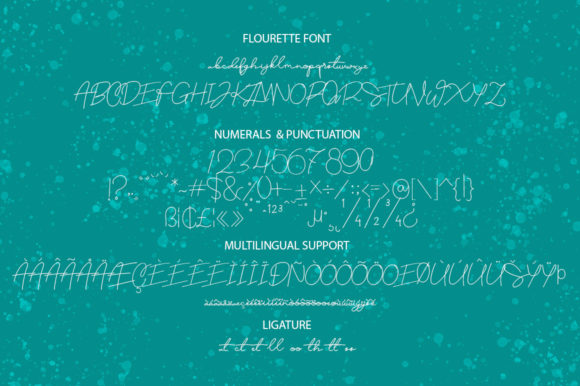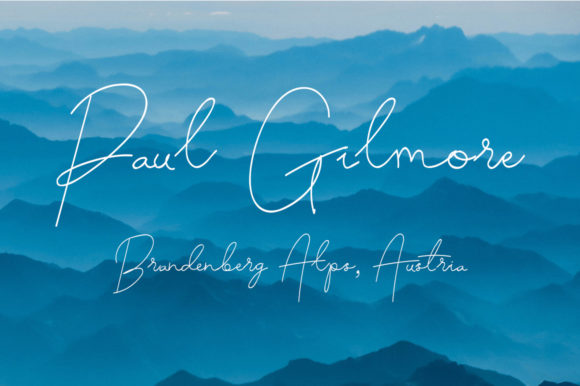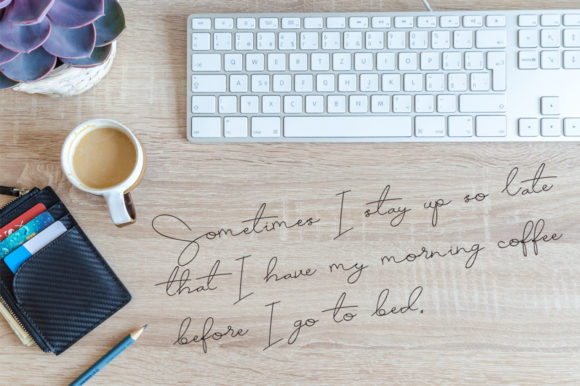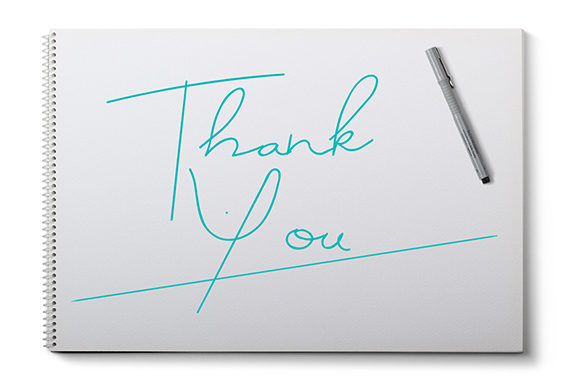
Fleurette Font: Elevate Your Designs with Delicate Elegance
In the world of typography, few fonts capture the essence of elegance and refinement as beautifully as Fleurette. This delicate, elegant, and flowing handwritten font has been making waves in the design community, and for good reason. With its stunning characters and impeccable balance, Fleurette is the perfect addition to any creative project. In this article, we’ll dive into the world of Fleurette font, exploring its unique features, versatility, and the endless possibilities it offers for designers and crafters alike.
The Beauty of Fleurette Font
Fleurette font is a masterclass in typographic design. Each character is carefully crafted to exude a sense of elegance and sophistication, making it perfect for projects that demand a touch of refinement. The font’s flowing lines and delicate curves create a sense of movement and fluidity, adding a dynamic touch to any design. Whether you’re working on a logo, invitation, or branding project, Fleurette font is sure to make a lasting impression.
Key Features of Fleurette Font
- Delicate and Elegant: Fleurette font boasts a slender, refined aesthetic that’s perfect for designs that require a touch of sophistication.
- Well-Balanced Characters: Each character is meticulously designed to ensure balance and harmony, making it easy to pair with a wide range of fonts and design elements.
- Flowing Handwritten Style: Fleurette’s handwritten style adds a touch of warmth and personality to any design, making it perfect for projects that require a human touch.
- Versatile: Fleurette font is incredibly versatile, making it suitable for a wide range of design applications, from logos and branding to invitations and packaging.
Pairing Fleurette Font with Other Design Elements
One of the standout features of Fleurette font is its incredible versatility. It pairs seamlessly with a wide range of design elements, from bold graphics to delicate illustrations. Here are a few tips for pairing Fleurette font with other design elements:
- Combine with Bold Graphics: Pair Fleurette font with bold graphics or geometric shapes to create a striking contrast that adds visual interest to your design.
- Match with Delicate Illustrations: Fleurette font also pairs beautifully with delicate illustrations or watercolor designs, creating a romantic and whimsical aesthetic.
- Use with Minimalist Backgrounds: For a clean and modern look, pair Fleurette font with a minimalist background, allowing the font to take center stage.
Fleurette font offers endless possibilities for designers and crafters looking to elevate their projects. Here are a few ideas to get you started:
- Wedding Invitations: Use Fleurette font to create stunning wedding invitations that set the tone for a romantic and elegant celebration.
- Branding and Logo Design: Fleurette font is perfect for branding and logo design projects that require a touch of sophistication and refinement.
- Packaging Design: Add a touch of elegance to your packaging design with Fleurette font, perfect for luxury brands or high-end products.
- Digital Art and Illustrations: Fleurette font can also be used to add a touch of personality to digital art and illustrations, making it perfect for artists and illustrators.
In conclusion, Fleurette font is a true gem in the world of typography. Its delicate, elegant, and flowing handwritten style makes it perfect for designers and crafters looking to add a touch of sophistication to their projects. With its versatility, balance, and beauty, Fleurette font is sure to become a staple in any designer’s toolkit. So why wait? Add Fleurette font to your most creative ideas and watch them come alive!